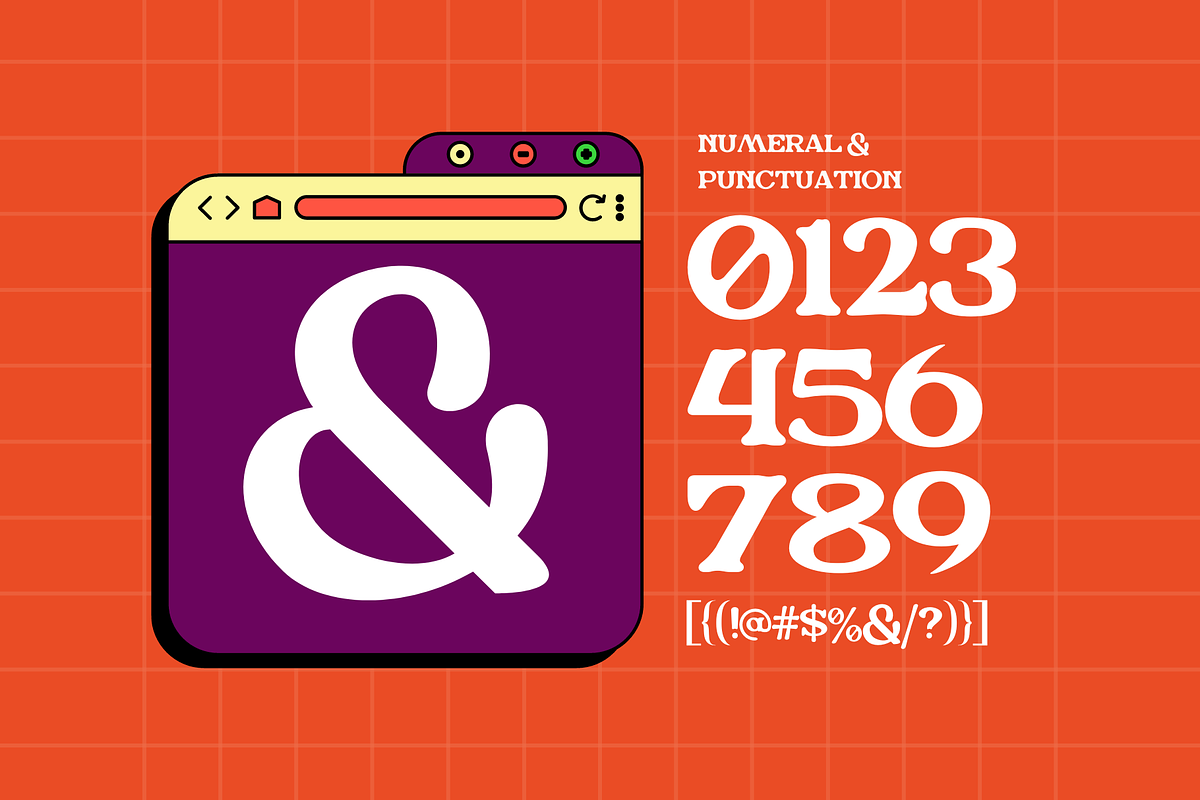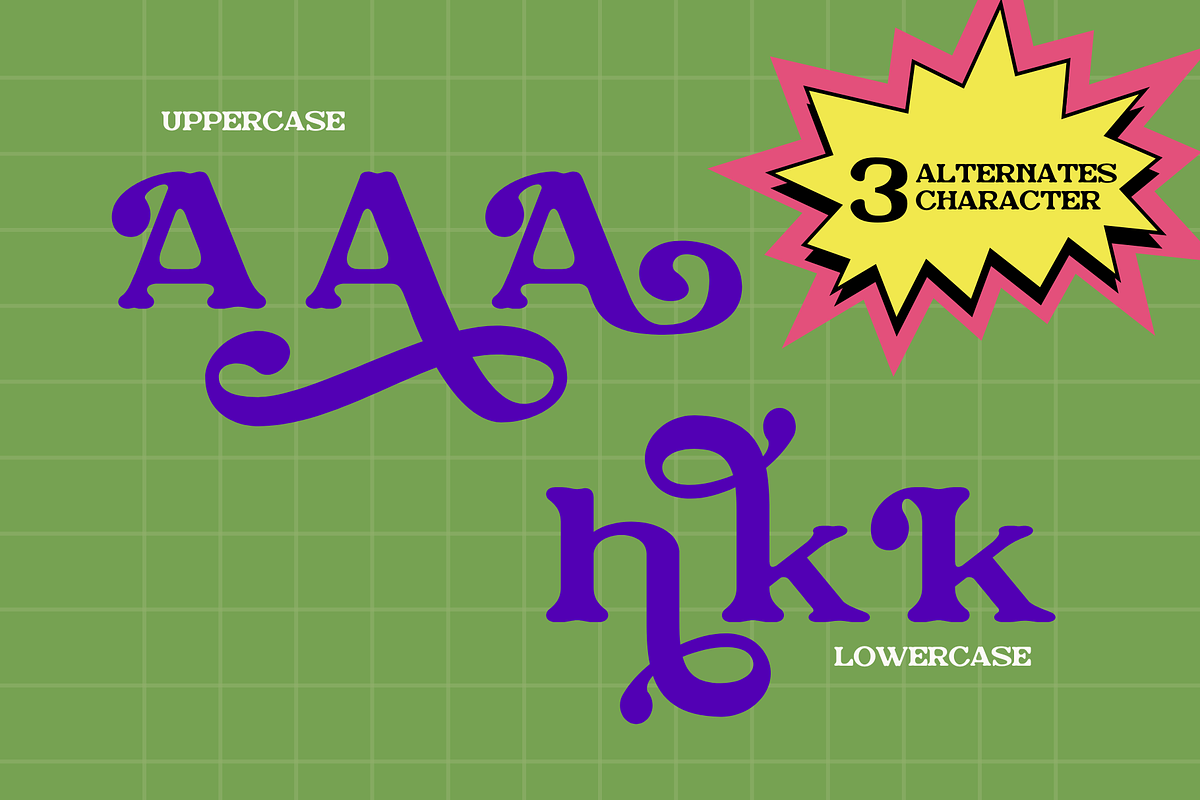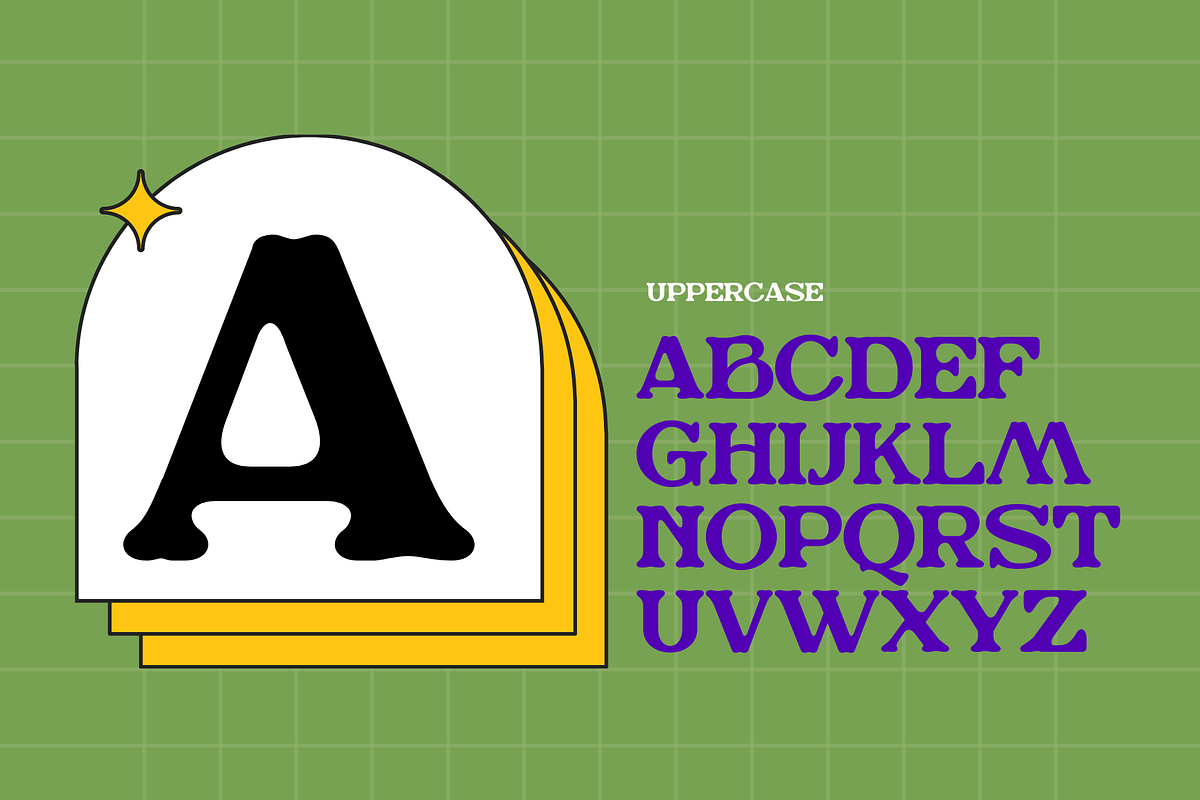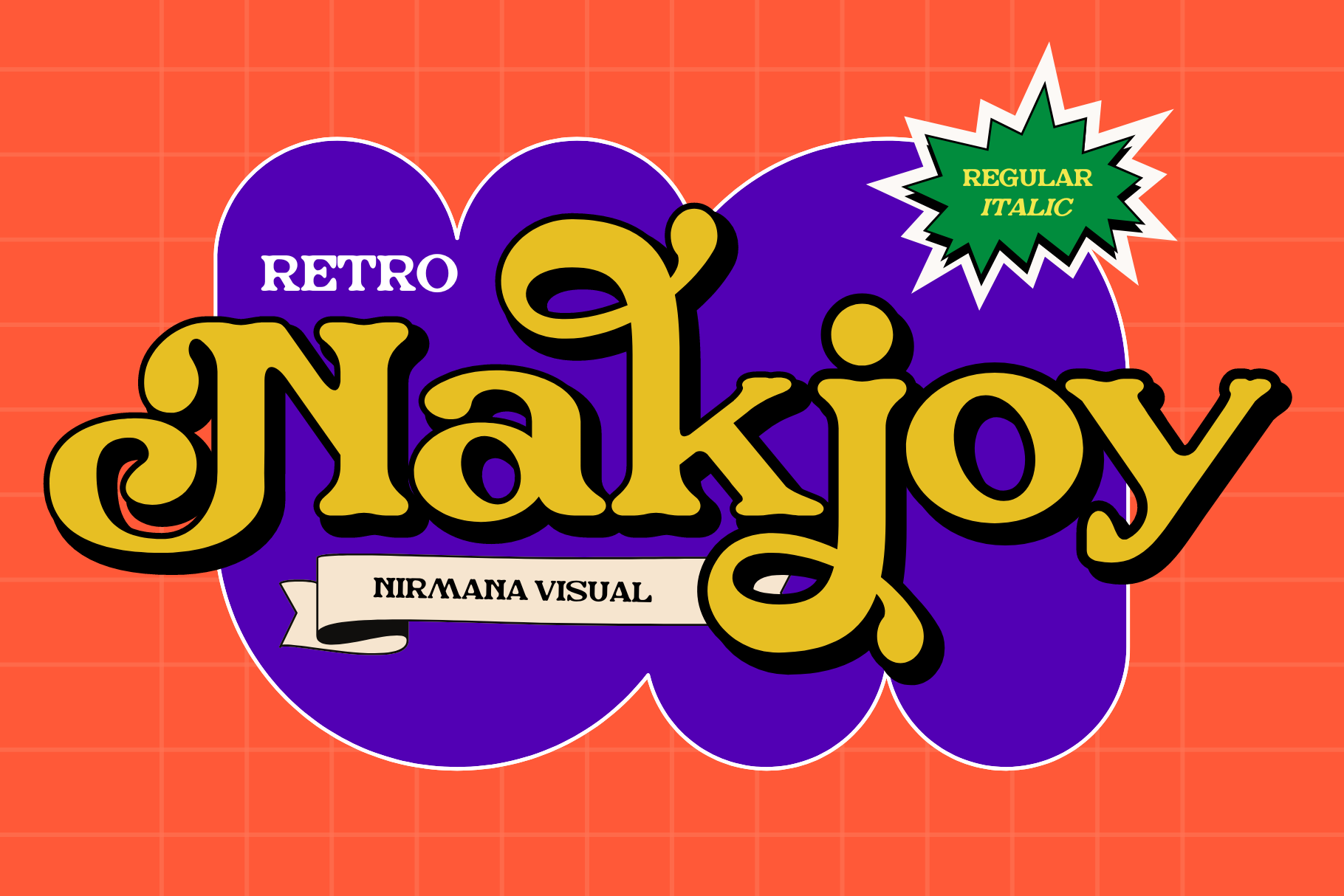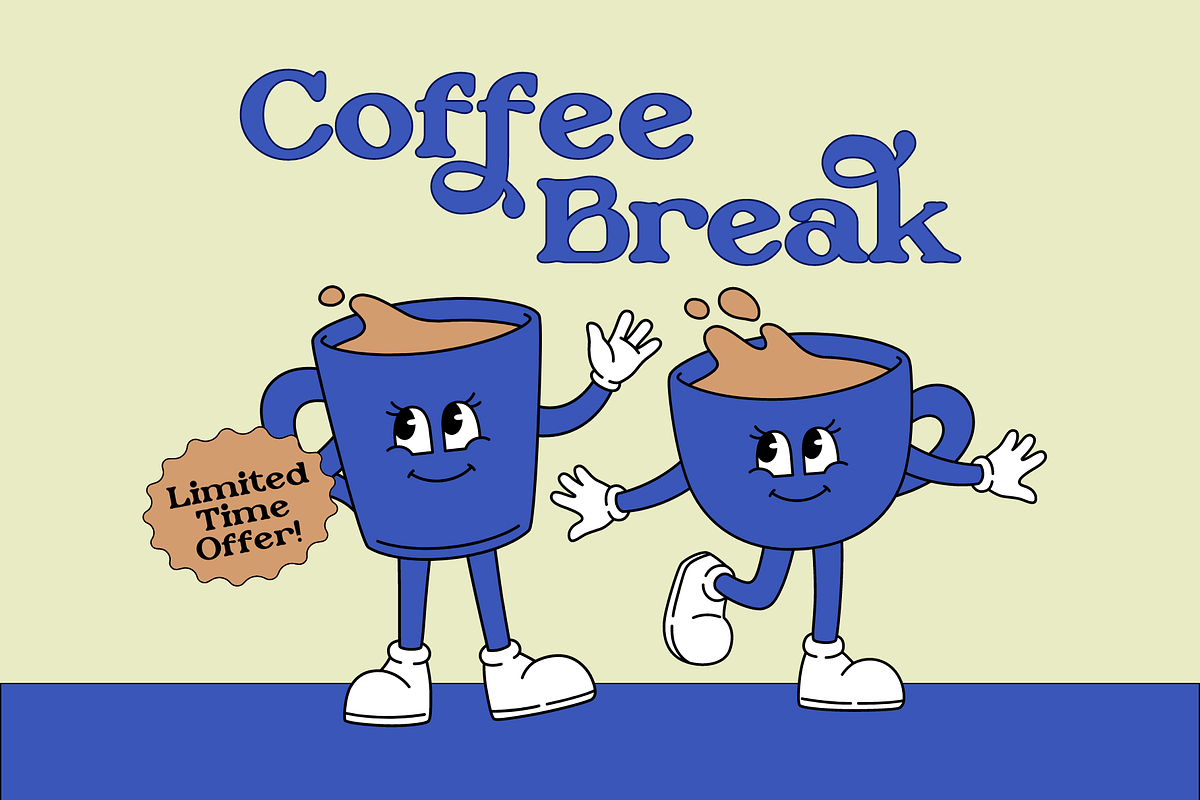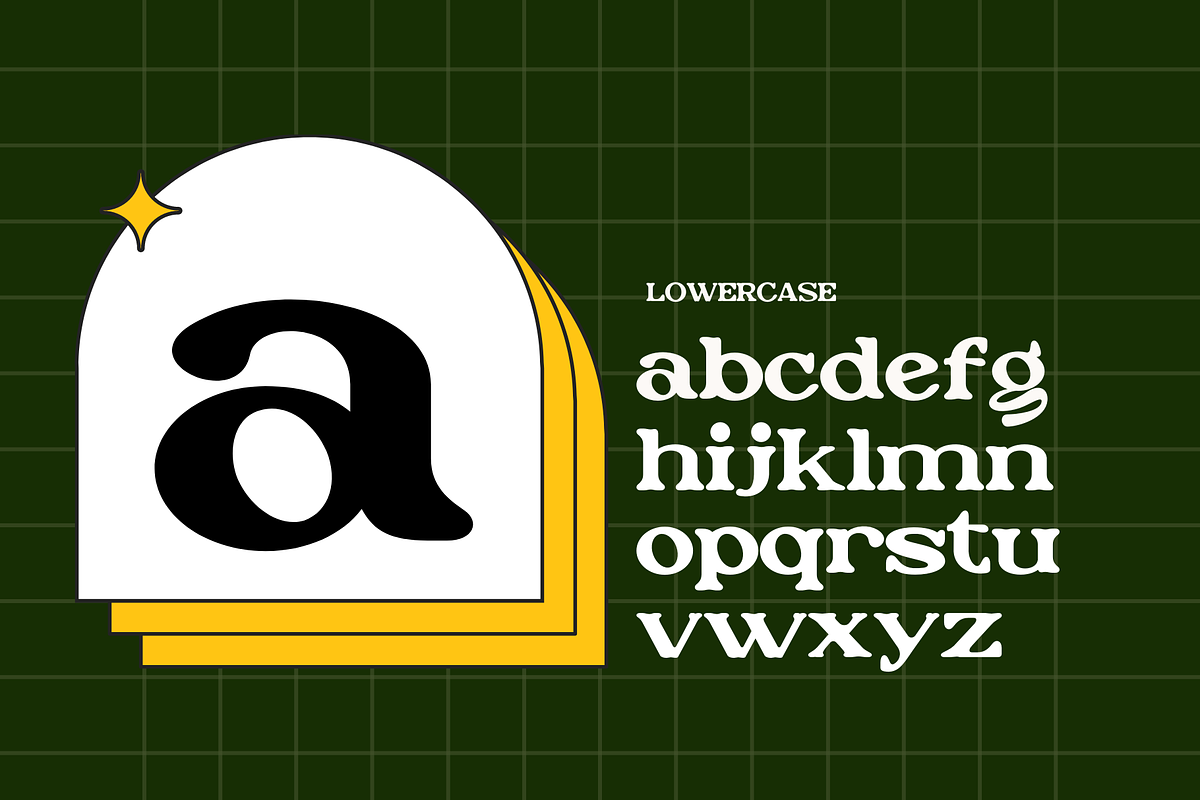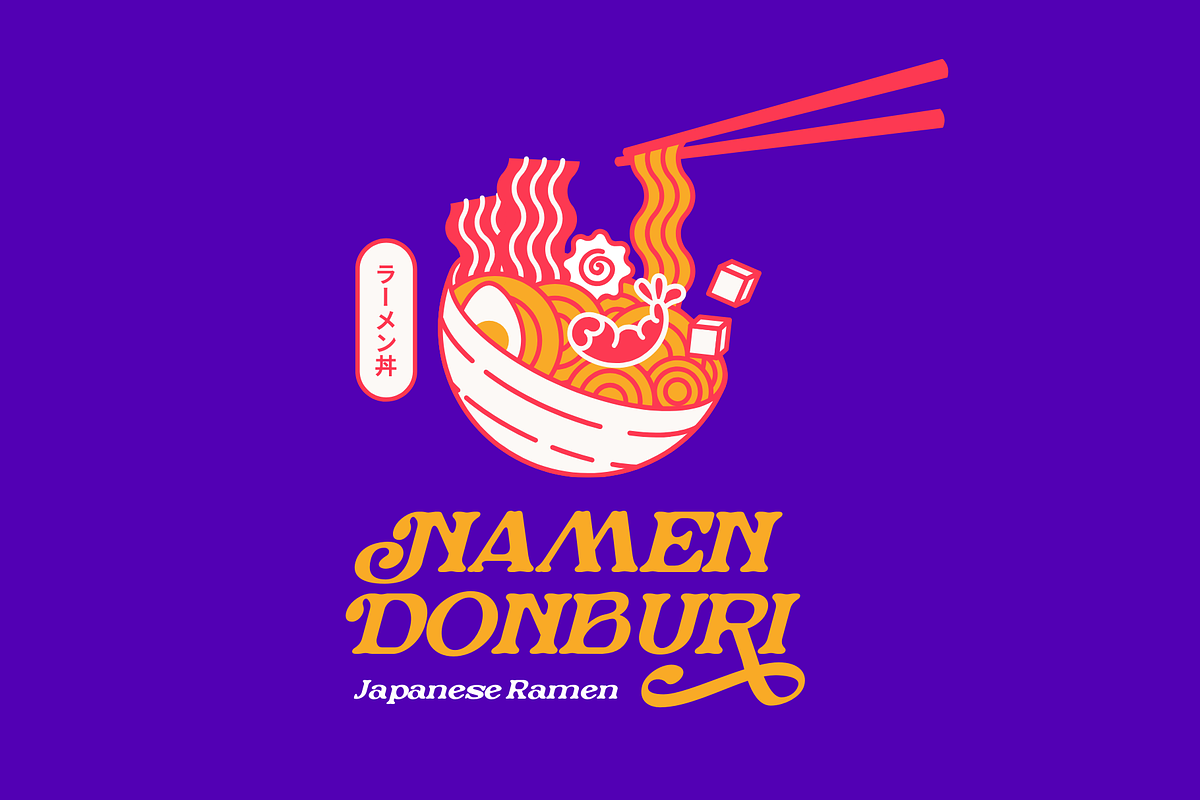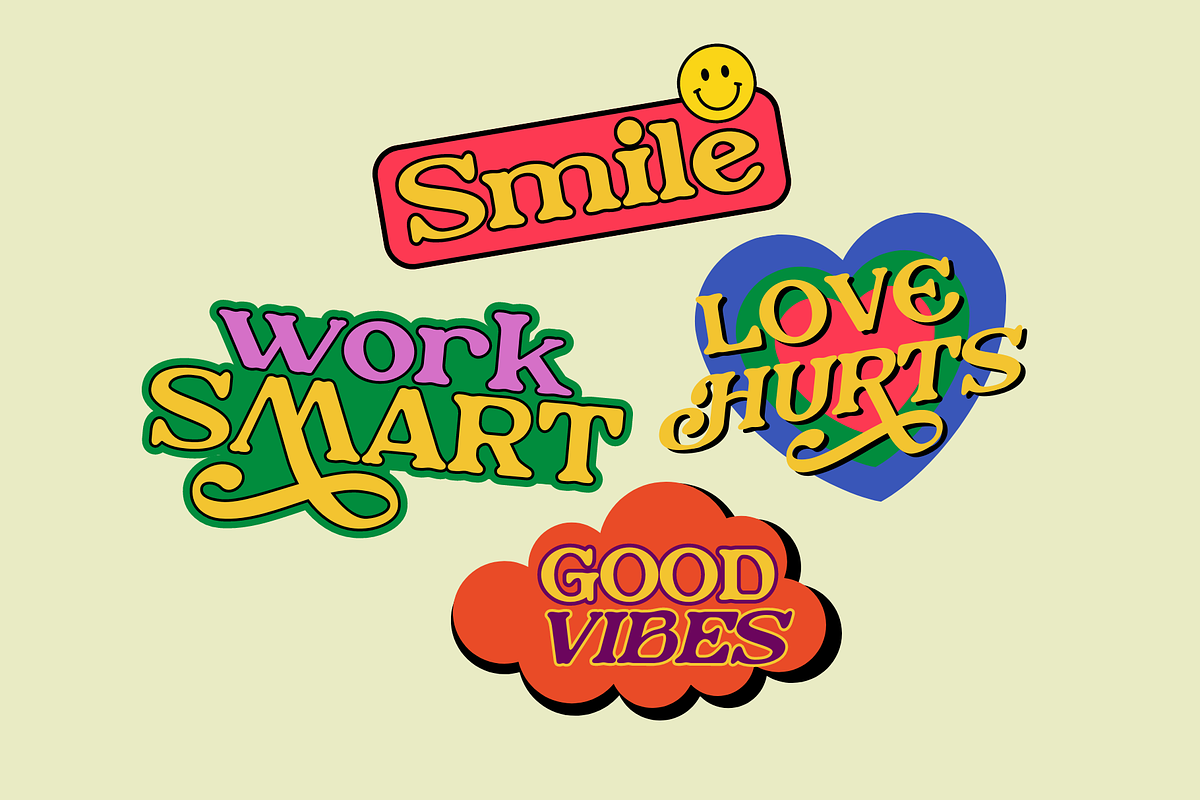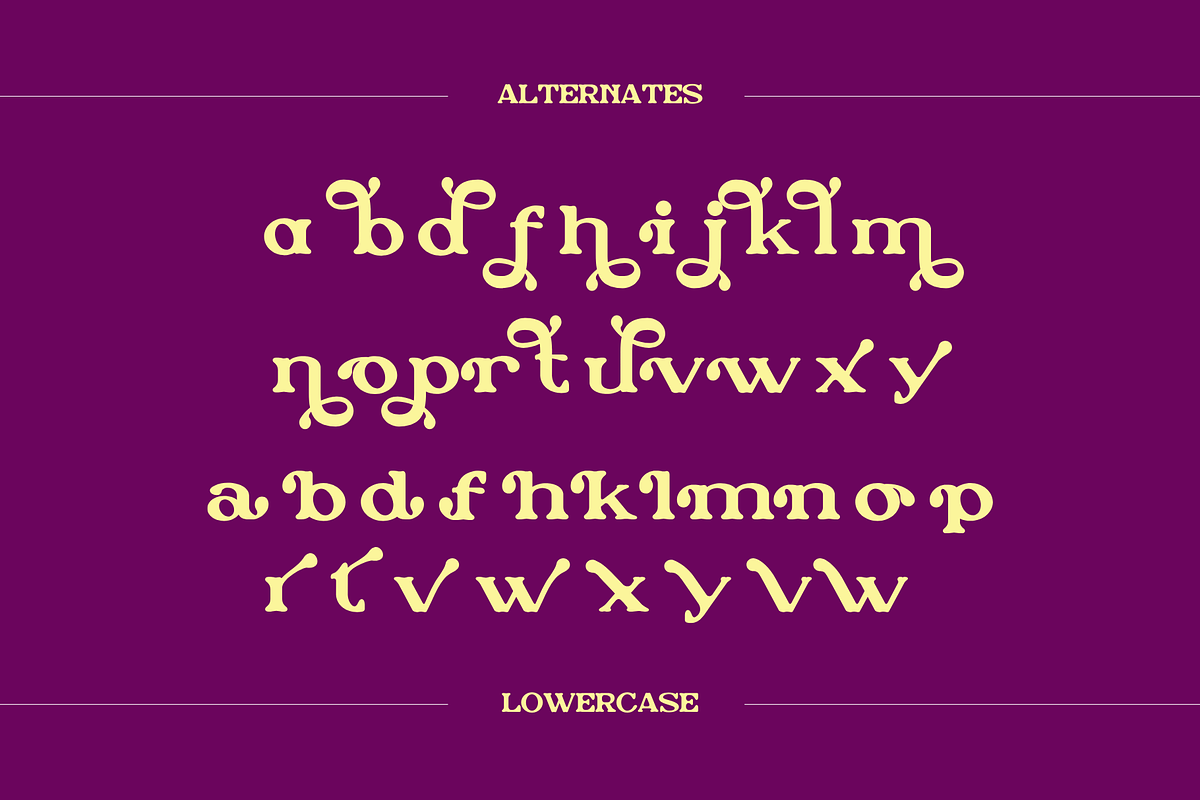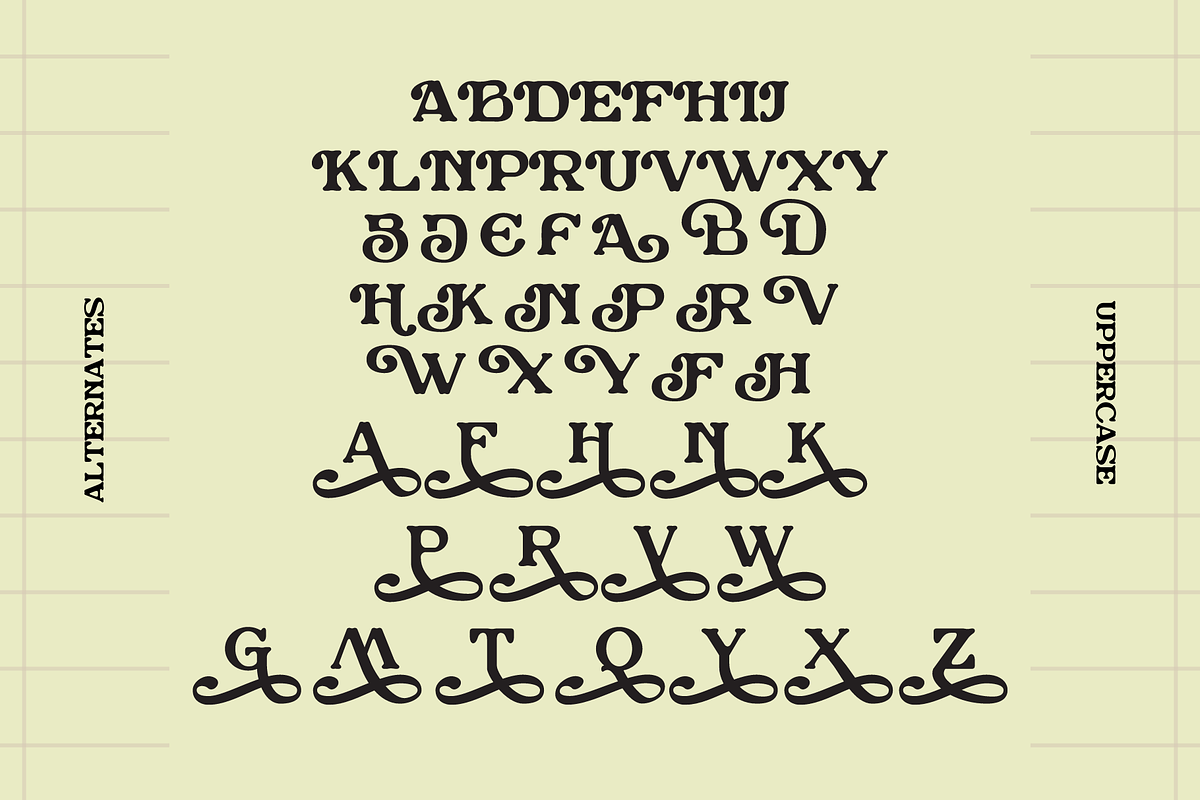
Retro Nakjoy - Branding Logo Font
Retro Nakjoy Font offers beautiful typographic harmony for a diversity of design projects, including logos & branding, social media posts, advertisements & product designs.